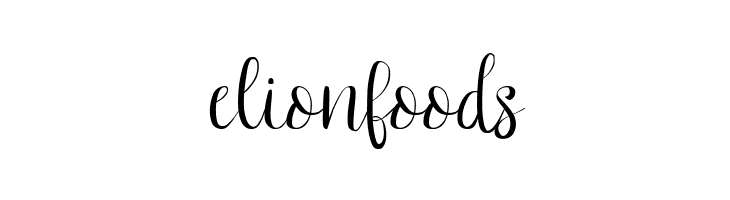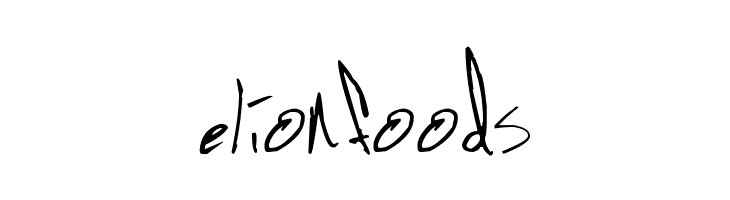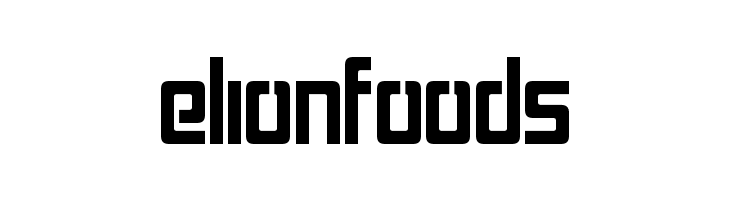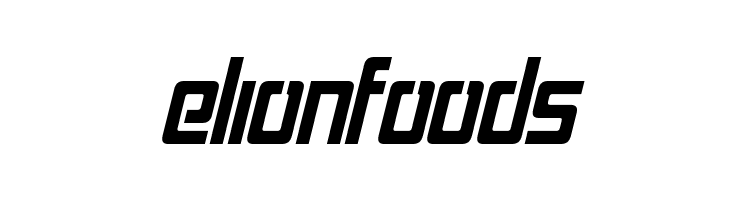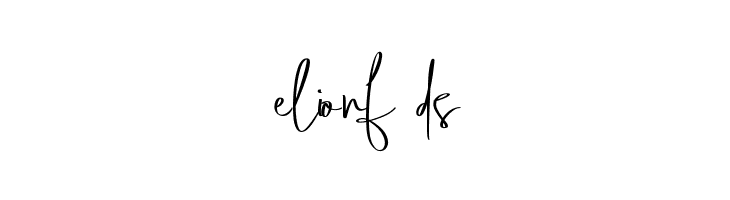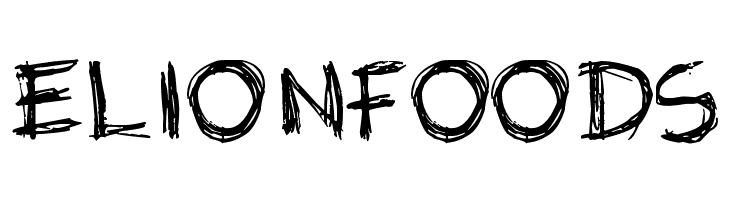
An elegant, flowing script font with graceful curves and swashes.
An elegant, flowing script font with a classic calligraphic style.
A bold, oblique font with a modern, dynamic style.
A sophisticated script font with flowing, connected strokes and decorative flourishes.
A modern, italic font with geometric influences and a dynamic style.
A lively, expressive handwritten font with flowing, interconnected letterforms.
A bold, hand-drawn font with a rough, textured appearance.